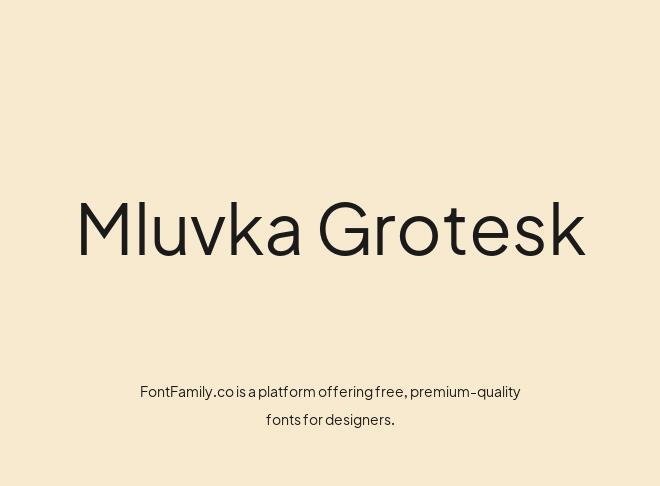
Mluvka Grotesk Font
Mluvka Grotesk Font is a modern and minimalist geometric sans serif typeface. With its clean lines and balanced proportions, it exudes a sense of simplicity and sophistication that is perfect for modern design aesthetics. This versatile font is ideal for both print and digital design, including logos, headlines, posters, and web design. Its sharp edges and clear forms make it highly legible, even in small sizes or complex layouts. Compared to other fonts in its category, Mluvka Grotesk Font stands out with its unique character and distinct style. It strikes the perfect balance between classic grotesque features and contemporary design trends, making it a must-have for every designer's toolkit. Its open font license allows for flexibility and creativity in a wide range of projects.